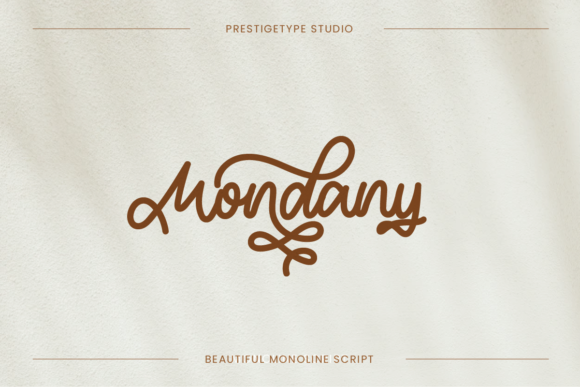
Embark on a typographic journey with Mondany - the quintessential script font that weaves elegance and harmony into your design tapestry. Let your words dance with grace and charm, as this beautiful monoline font graces your projects with its neat curve glyphs.
Mondany is a masterful creation, crafted with meticulous attention to detail. Its essence lies in its ability to transform the ordinary into the extraordinary, making it the perfect companion for branding endeavors. Picture your logo, label, title, or social media posts adorned with Mondany's timeless beauty. Its versatility extends to business cards, quotes, and a myriad of other design possibilities.
With Mondany's PUA encoding, you hold the key to unlocking a treasure trove of glyphs and swashes, empowering you to unleash your creativity and add a touch of whimsy to your designs. Unleash your inner artist and let Mondany's graceful strokes elevate your projects to new heights of sophistication.
Mondany beckons you to embrace the allure of rustic weddings, where its enchanting script weaves a tapestry of romance and timeless charm. This font is a symphony of artistry, a conductor of emotions that will leave an indelible mark on your wedding invitations, menus, and signage.
Whether you're a seasoned designer or just starting your creative journey, Mondany is your trusted companion, guiding you through the labyrinth of design possibilities with ease. Its user-friendly nature makes it accessible to all, allowing you to effortlessly incorporate its grace into your projects.
Mondany is more than just a font; it's an invitation to step into a world of enchantment, where your designs blossom into works of art. Its timeless beauty will endure, leaving a legacy of sophistication in its wake. Embrace the allure of Mondany and let its elegance transport you to new realms of creativity.